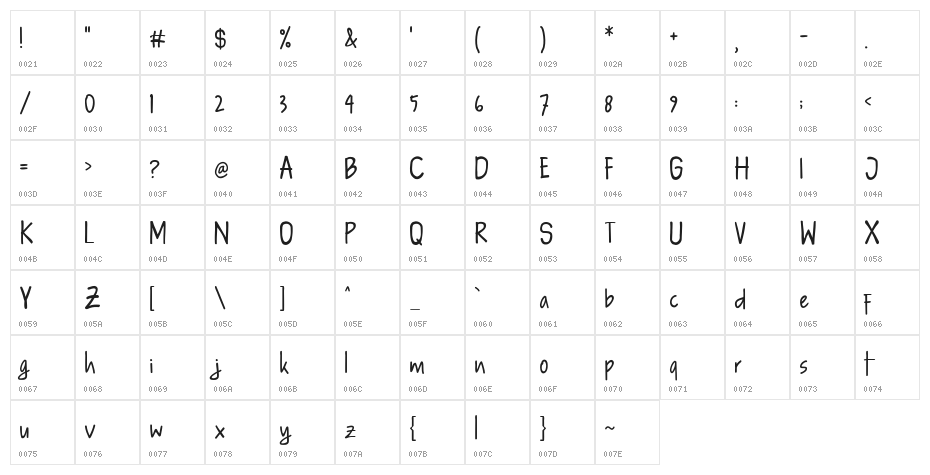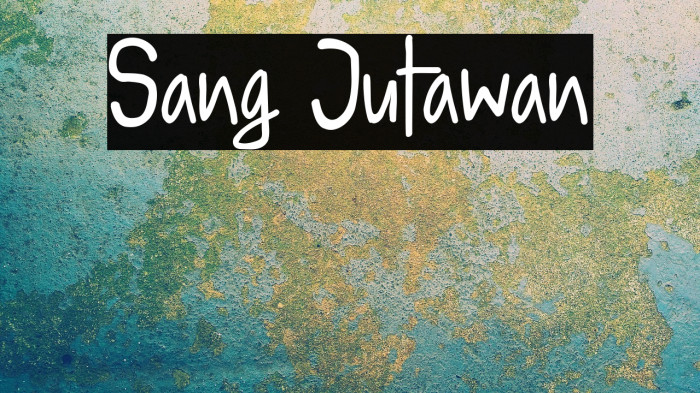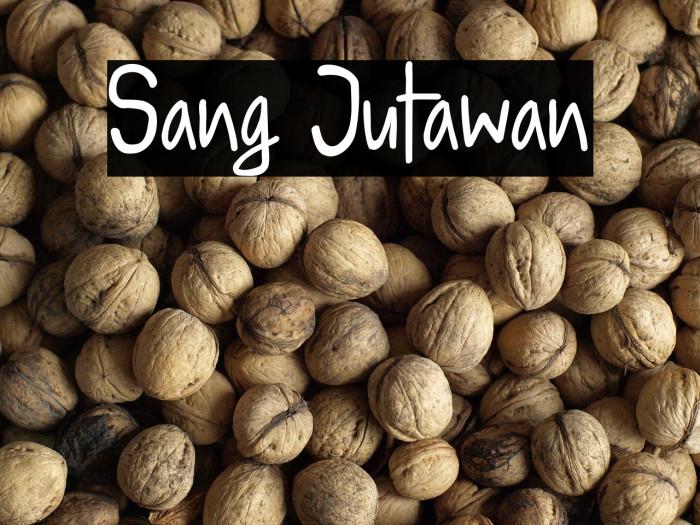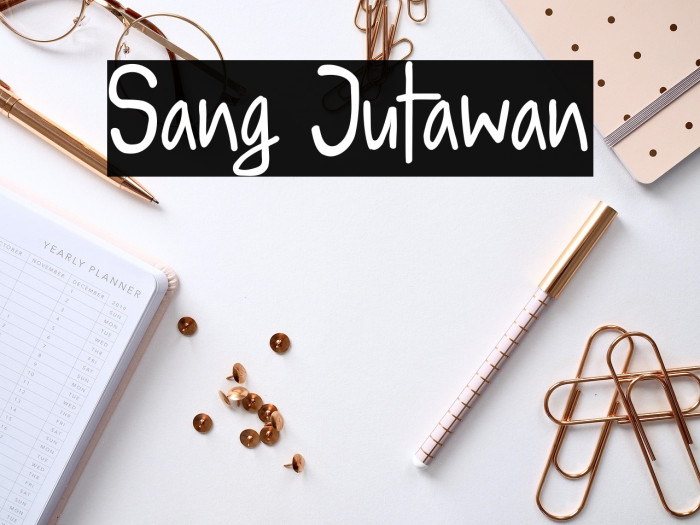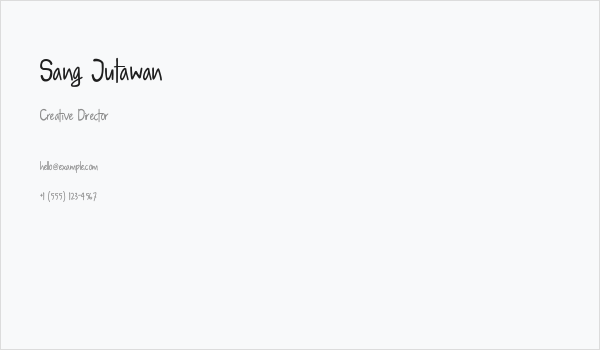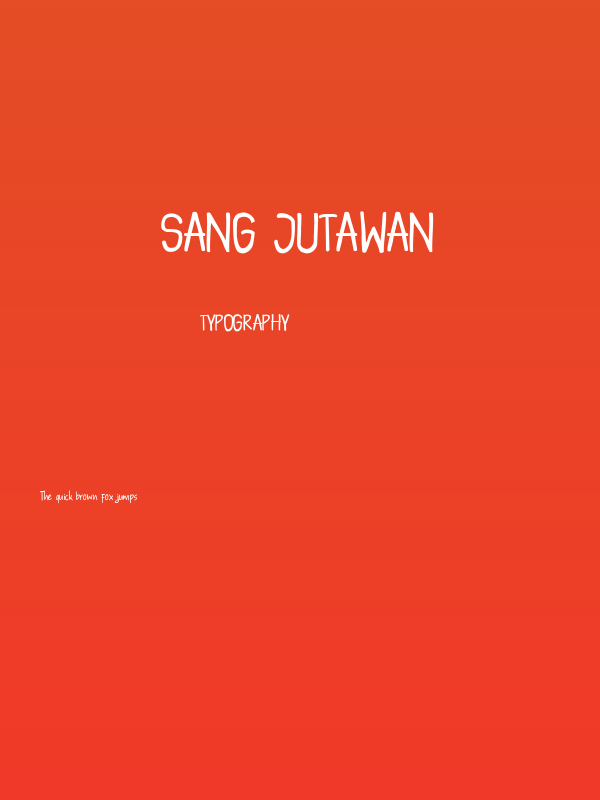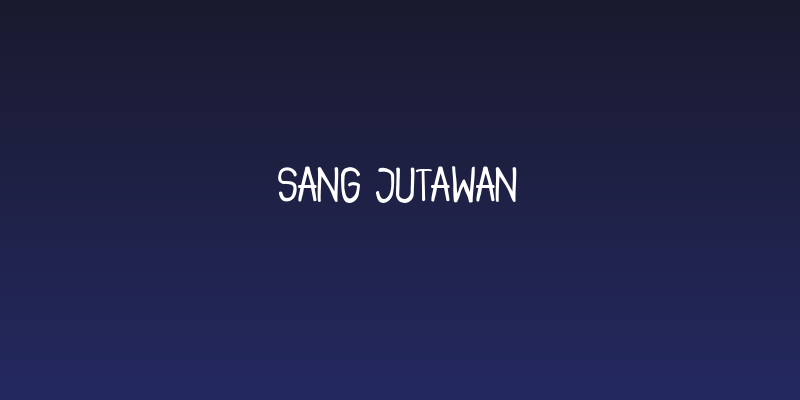
Sang Jutawan Font
Sang Jutawan Description
This font features a playful and casual handwritten style, characterized by its smooth, rounded edges and slightly irregular letterforms. The uppercase letters are bold and prominent, while the lowercase letters maintain a consistent flow, adding to the font's approachable and friendly appearance. The numerals are clear and well-proportioned, ensuring readability. Special characters are included, maintaining the same whimsical style, making this font versatile for various creative projects.
| Use Case | Headlines, Logos, Social Media Graphics |
| Proposed Projects | Ideal for greeting cards, children's books, playful branding, and social media graphics. |